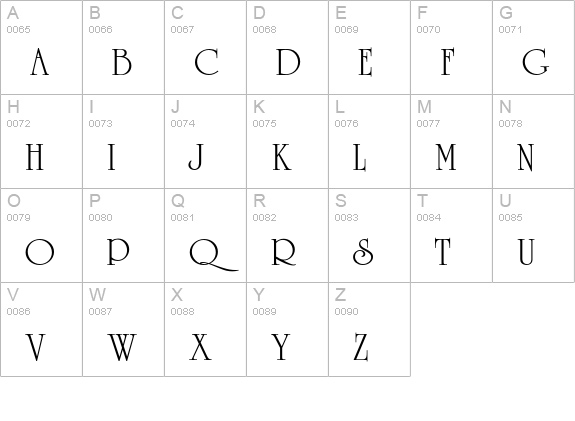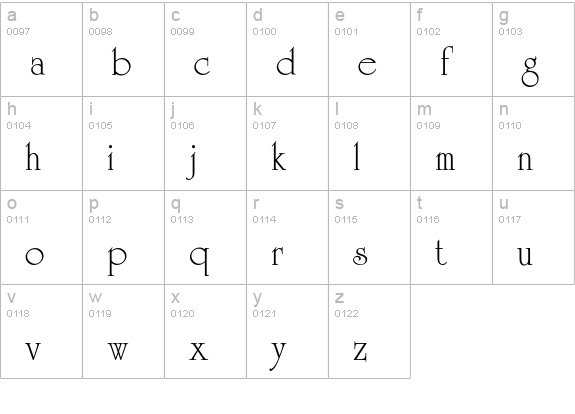
UniversityCyr-Roman Font Details
Introducing UniversityCyr-Roman, a stunning and versatile font that is sure to elevate your design projects to new heights. With its sleek and elegant design, this font exudes a sense of sophistication and professionalism, making it perfect for a wide range of applications. What sets UniversityCyr-Roman apart is not only its impeccable style, but also the fact that it is free! That's right, this amazing font is freely available to download at FontsMarket.com. Whether you are a student, a professional, or simply a design enthusiast, you can now access this exceptional font without spending a dime. UniversiryCyr-Roman offers a wide range of characters, including uppercase and lowercase letters, numbers, symbols, and punctuation marks. Its clean and crisp lines ensure legibility at any size, making it a versatile choice for both print and digital projects. Whether you're designing a logo, creating a brochure, or crafting a website, UniversityCyr-Roman will effortlessly adapt to your needs, adding a touch of class and elegance to your work. With its timeless appeal and effortless readability, this font is suitable for a variety of design styles and purposes. From modern and minimalist designs to classic and retro-inspired layouts, UniversityCyr-Roman effortlessly adapts to any aesthetic, making it a go-to choice for designers of all levels of expertise. Don't miss out on the opportunity to enhance your creative endeavors with UniversityCyr-Roman. Download this remarkable font for free at FontsMarket.com and let your designs speak volumes with its elegance and charm.